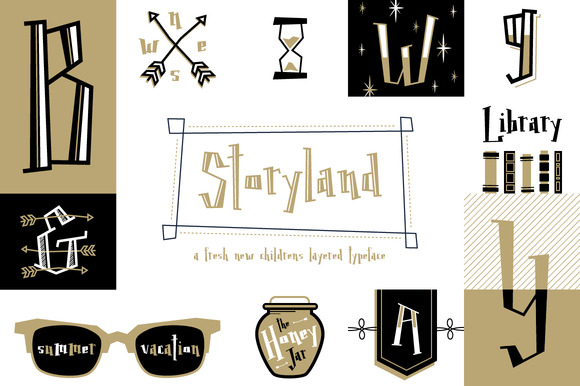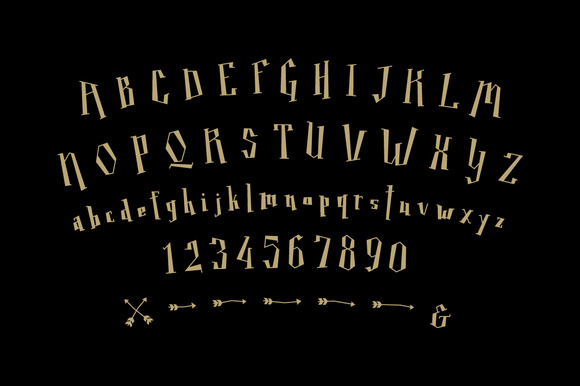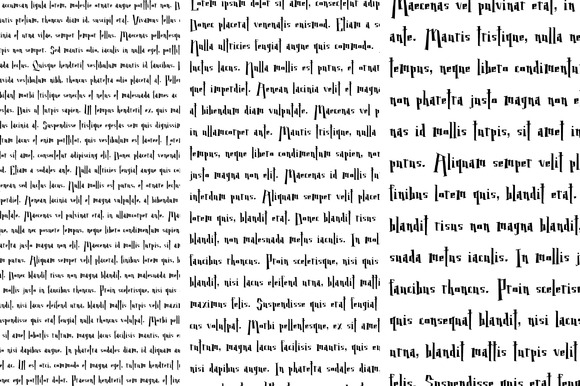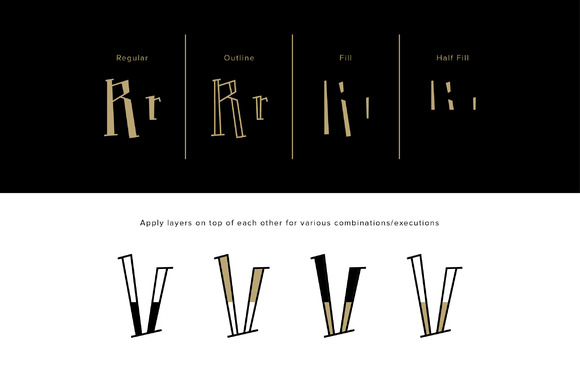
Storyland Typeface
Storyland is a fun font with many layers which can be used in a variety of ways. This playful and whimsical font was originally created as text for children books and stories but can have many uses outside that realm. I have included some fairytale elements in the glyphs including different arrows, an hour glass, an “X” marks the spot as well as a second ampersand…who doesn’t like an extra ampersand. I hope you enjoy using this as much as I have creating it.
As I found out from its first use by my creative friends, it also looks really good for Anti-Valentines Day Party labels and signage.